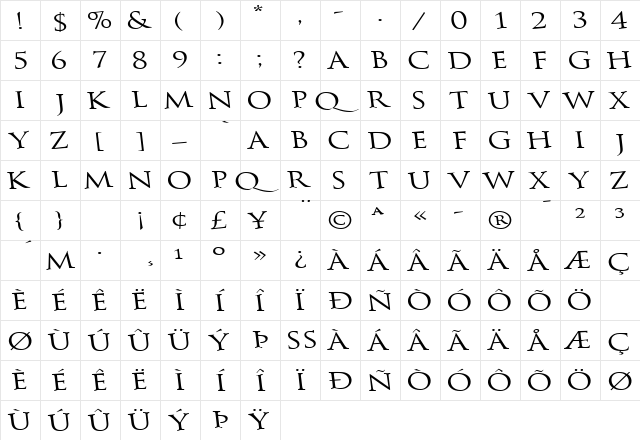
Bathing Regular
Design Context for Bathing Typeface
Bathing offers clean, dependable letterforms without strong stylistic allegiance, making it a practical choice for designers who need flexibility. Its slender proportions lend an understated elegance to any composition.